Understanding skincare brand identity typography is essential for building a strong and recognizable beauty brand. In the skincare industry, visual branding plays a crucial role in attracting customers and creating trust. Among all visual elements, typography is one of the most powerful tools.
When customers see a skincare product, they often judge it within seconds. Therefore, the font used on packaging, labels, and marketing materials directly influences perception. A clean and elegant font can suggest quality and safety, while an inconsistent font choice may reduce credibility.
In this article, we will explore the role of typography in skincare brand identity, including key characteristics, font styles, and practical tips for designers.
Why Skincare Brand Identity Typography Matters
The concept of skincare brand identity typography is important because it shapes how customers perceive your brand. In a highly competitive market, visual consistency is essential.
Typography helps:
- Build brand recognition
- Communicate product values
- Create an emotional connection
- Improve readability
Moreover, typography works together with colors, images, and layout to form a cohesive identity. As a result, a strong typography system can make your brand more memorable.
The Role of Typography in Visual Branding
Typography is not just about text; it is about communication and perception.
1. Creates First Impressions
Fonts are often the first thing customers notice. Therefore, they set the tone for the entire brand.
2. Defines Brand Personality
Different font styles convey different personalities:
- Serif fonts → Luxury and tradition
- Sans-serif fonts → Clean and modern
- Script fonts → Elegant and feminine
Because of this, choosing the right font is critical.
3. Enhances Visual Consistency
Using consistent typography across all platforms ensures a unified brand identity.
4. Improves User Experience
Clear typography helps customers read product information easily, especially on small labels.
Characteristics of Skincare Typography
Before choosing fonts, it is important to understand the characteristics of skincare typography.
1. Clean and Minimalist Design
Skincare brands often use simple fonts to reflect purity and transparency.
2. Elegant and Refined Style
Thin strokes and balanced spacing create a premium feel.
3. Soft and Calming Appearance
Curved letterforms help convey comfort and care.
4. High Readability
Labels must remain readable, even at small sizes.
Popular Typography Styles in Skincare Branding
Different typography styles can be used depending on brand identity.
Serif Fonts for Premium Brands
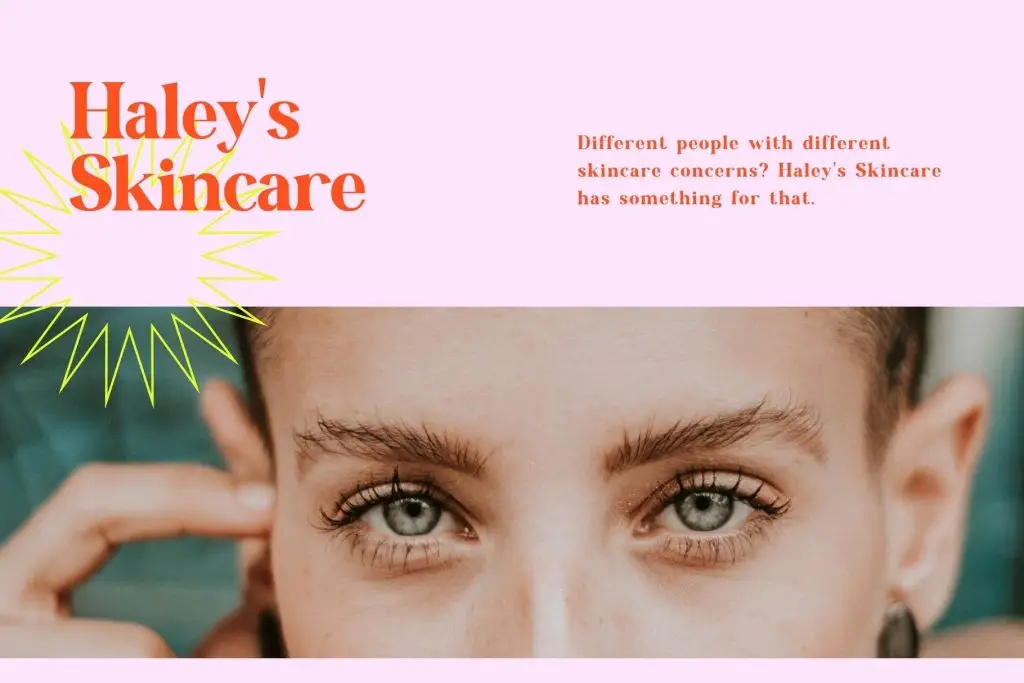
Serif fonts are often associated with luxury.
Best for:
- High-end skincare
- Anti-aging products
- Exclusive packaging
Sans-Serif Fonts for Modern Brands
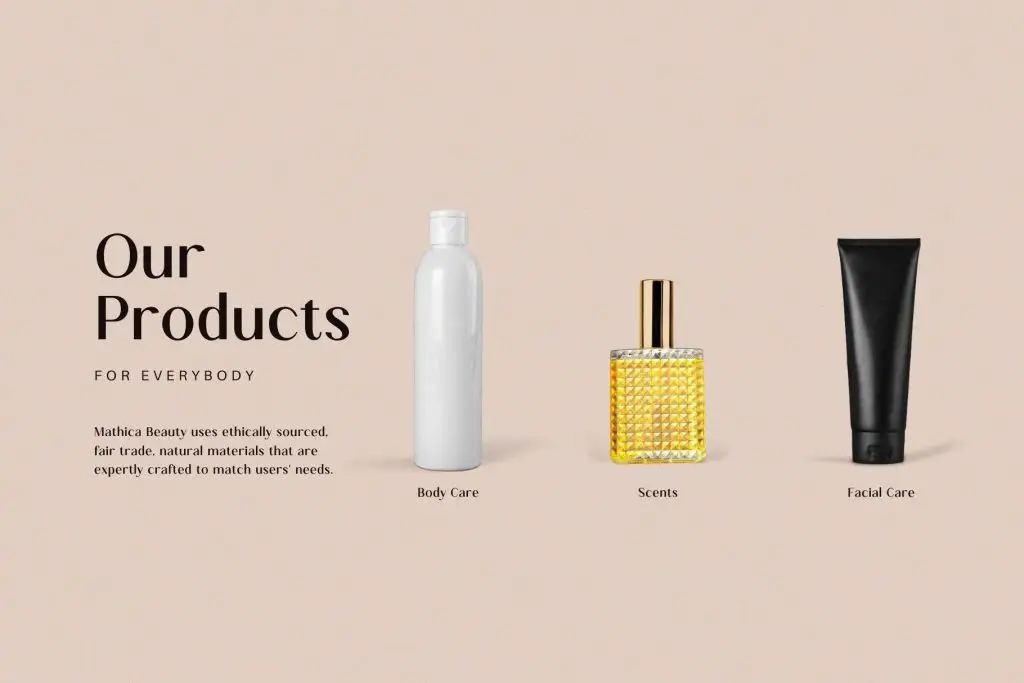
Sans-serif fonts create a clean and contemporary look.
Best for:
- Minimal skincare brands
- Organic products
- Digital branding
Script Fonts for Elegant Branding
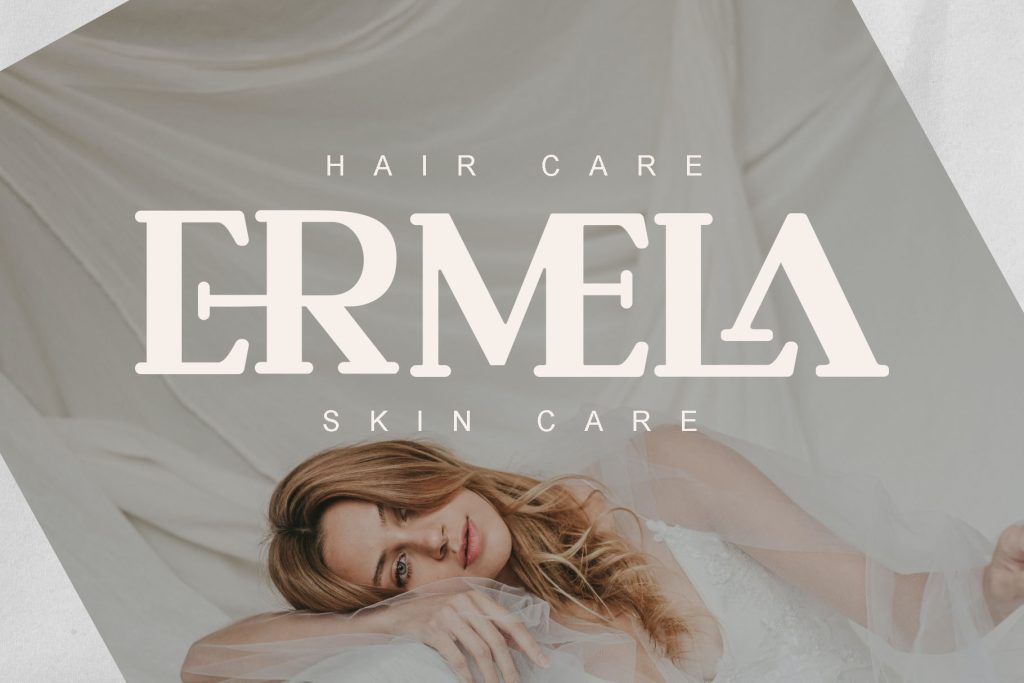
Script fonts add a personal and feminine touch.
Best for:
- Brand names
- Decorative elements
- Highlight text
How to Choose the Right Typography for Skincare Brand Identity
Choosing the right skincare brand identity typography requires strategy.
1. Define Your Brand Personality
Decide how your brand should feel:
- Luxury → Serif fonts
- Minimal → Sans-serif fonts
- Feminine → Script fonts
2. Understand Your Target Audience
Different audiences respond to different styles. For example, younger customers prefer modern fonts, while premium audiences prefer elegant typography.
3. Focus on Readability
Typography must be clear and easy to read, especially on packaging.
4. Limit Font Usage
Use 2–3 fonts only:
- Primary font → Logo
- Secondary font → Headings
- Body font → Product details
How to Use Typography Effectively in Skincare Branding
Using skincare brand identity typography effectively ensures better results.
1. Combine Fonts Strategically
Pair fonts to create balance:
- Serif + Sans-serif
- Script + Sans-serif
This improves readability and visual appeal.
2. Maintain Consistency
Use the same typography across:
- Packaging
- Website
- Social media
Consistency builds trust.
3. Use Proper Spacing
Spacing enhances clarity and creates a premium look.
4. Align Typography with Visual Elements
Fonts should match colors, images, and layout.
How Typography Influences Customer Perception
Typography has a direct impact on how customers view your brand.
For example:
- Elegant fonts → Premium quality
Conclusion
Understanding a skincare brand’s identity typography is essential for creating strong and effective visual branding. Typography shapes how customers perceive your brand, from first impressions to long-term recognition.
Moreover, by focusing on clarity, consistency, and elegance, designers can create branding that stands out in the skincare industry. Typography is not just a design element; it is a powerful communication tool.
In the end, the right typography can elevate your skincare brand and create a lasting impression.